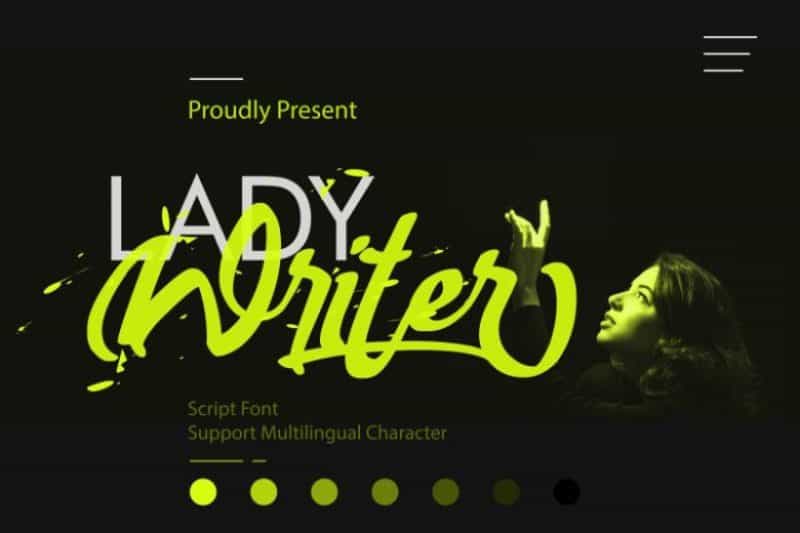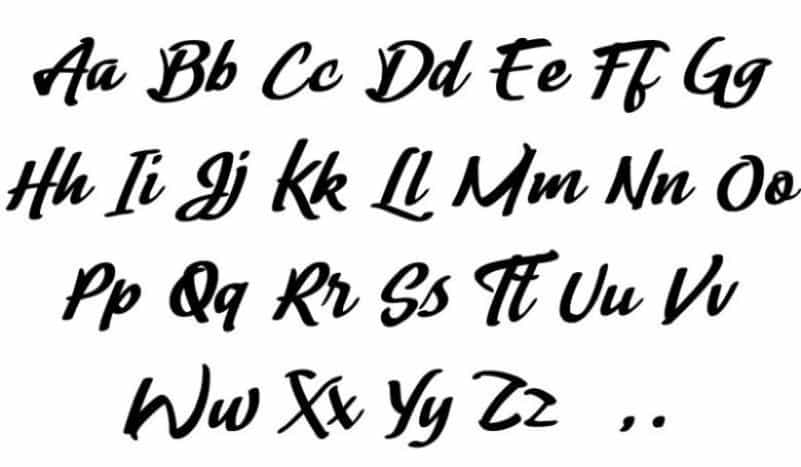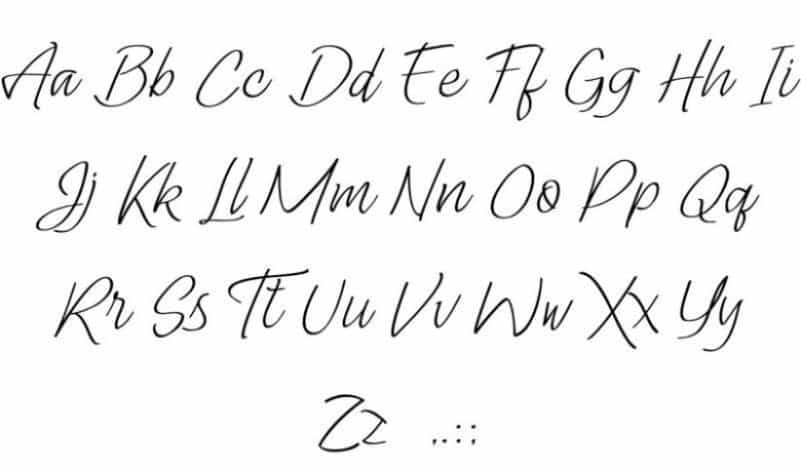
The font family of Lady Writer, created by Nico Muslib, consists of 2 styles. Lady Writer font is very powerful and cool script font with modern look. Be amazed at its stylistic features! To add the Lady Writer font to your computer, you can click on the download link for the font and save it to your computer.